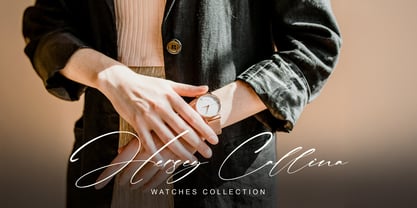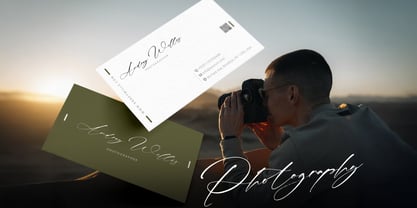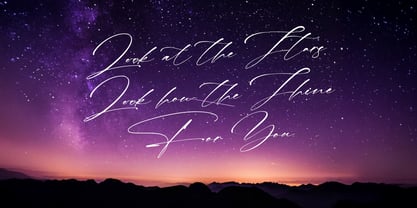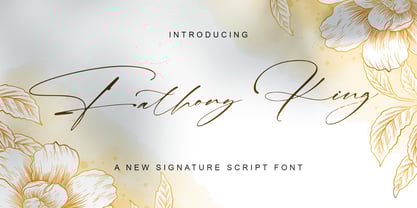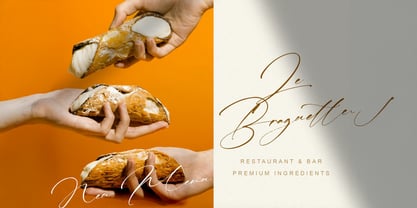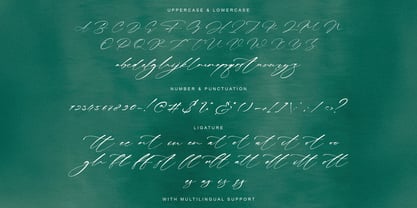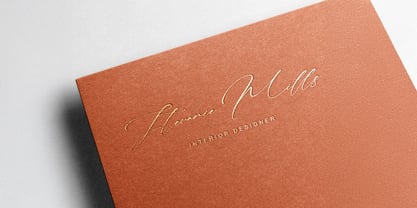
Fathony King
by Stringlabs Creative Studio
The Fathony King Font Family was designed by Virgiawan Listanto and published by Stringlabs Creative Studio. Fathony King contains 1 styles. More about this family
Fathony King is a luxurious signature font designed to capture the beauty of handwritten elegance. With smooth strokes, natural curves, and a refined personal touch, it brings a sense of class and sophistication to your projects. Perfect for branding, logos, invitations, wedding stationery, fashion designs, and social media posts, this font delivers both modern charm and timeless style. Its authentic handwritten feel ensures every design stands out with personality and elegance.
Designers: Virgiawan Listanto
Current Foundry: Stringlabs Creative Studio